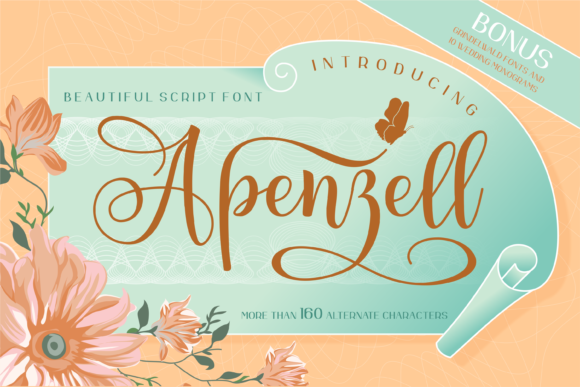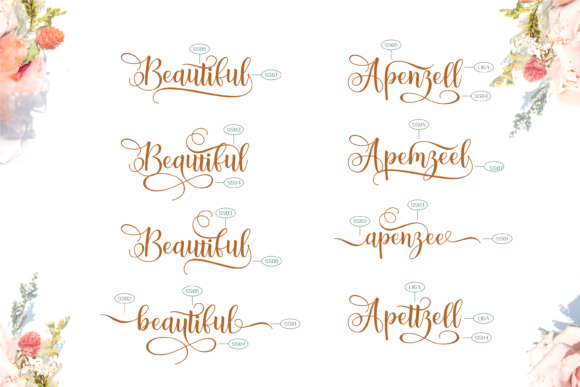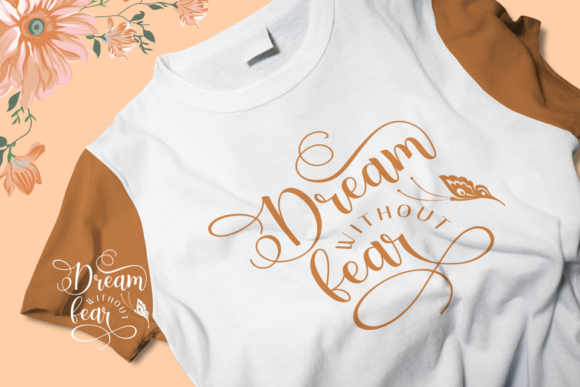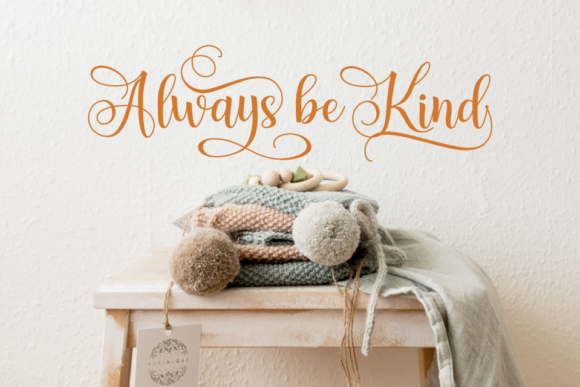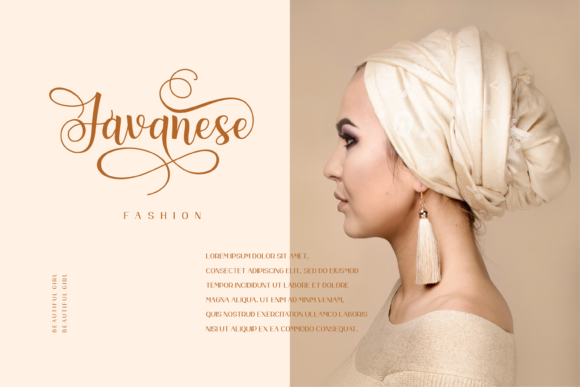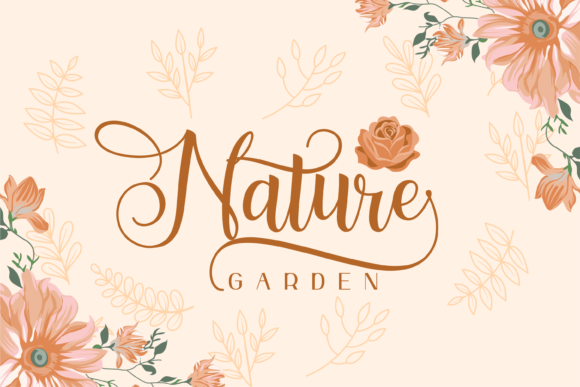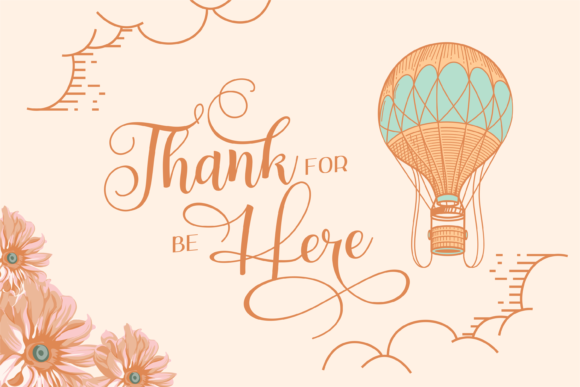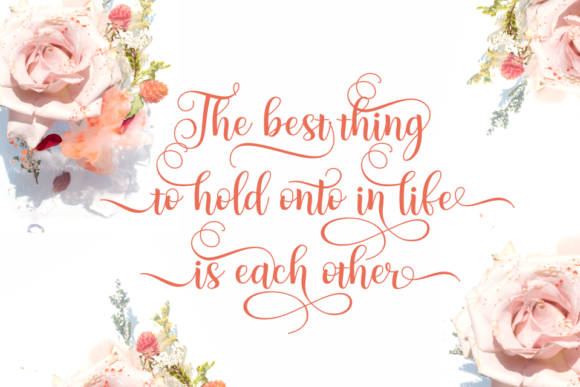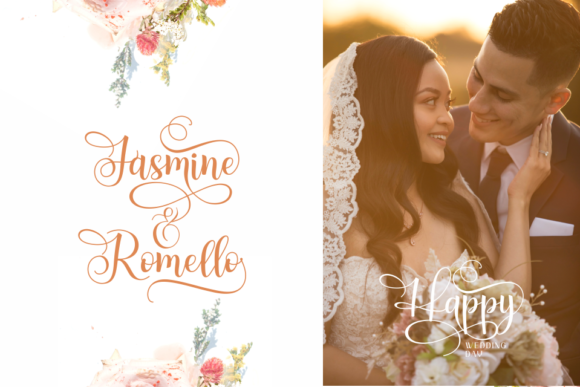
Apenzell Font
About Apenzell Font
Apenzell feels timeless and elegant. It looks stunning on wedding invitations, thank you cards, quotes, greeting cards, logos, business cards and every other design which needs a handwritten touch.